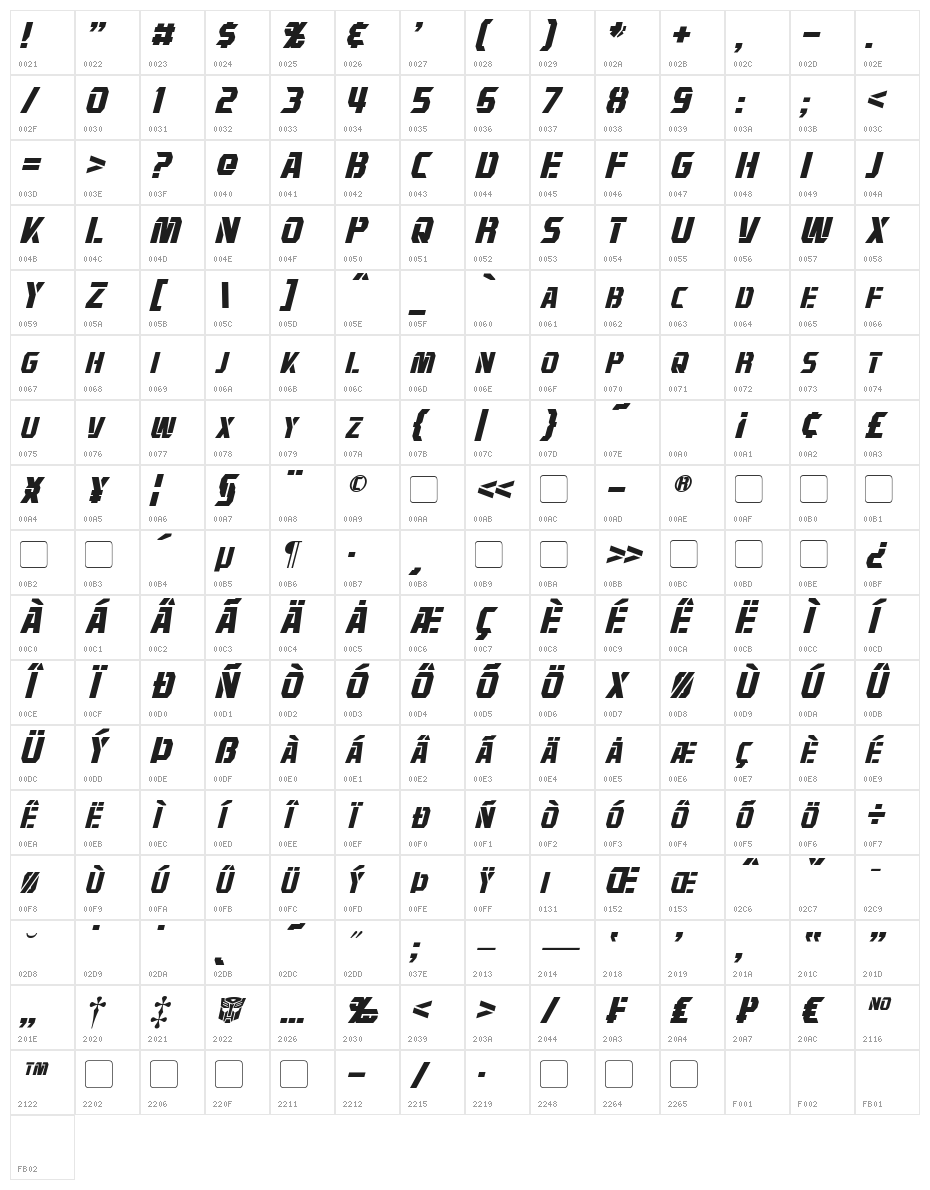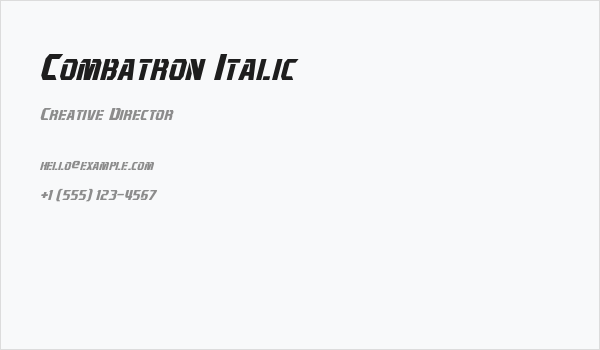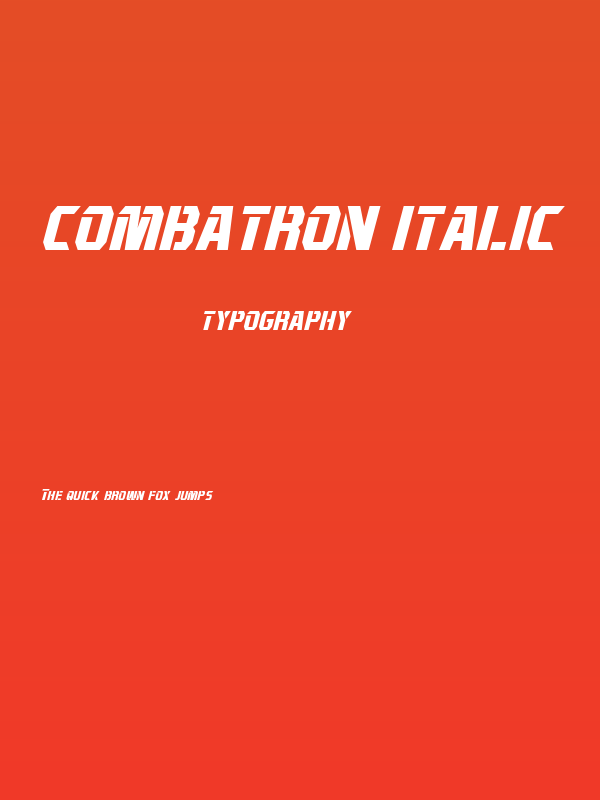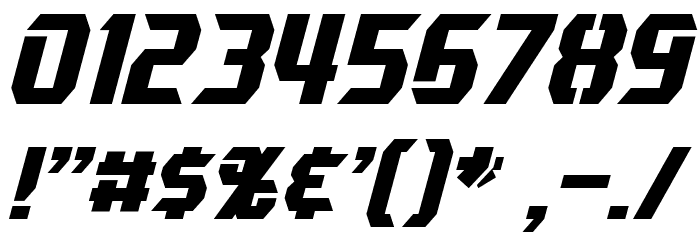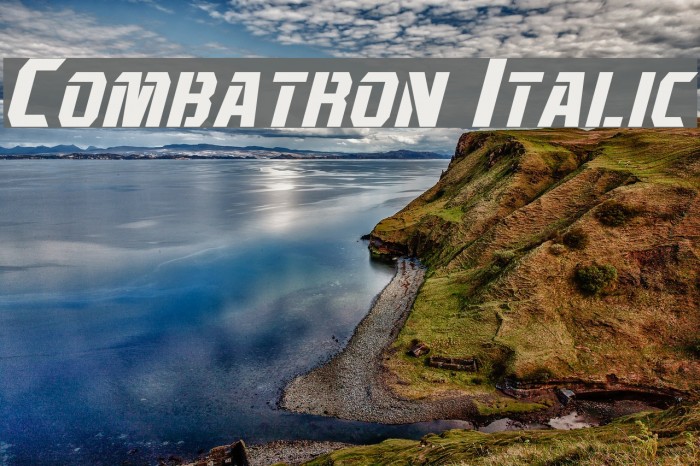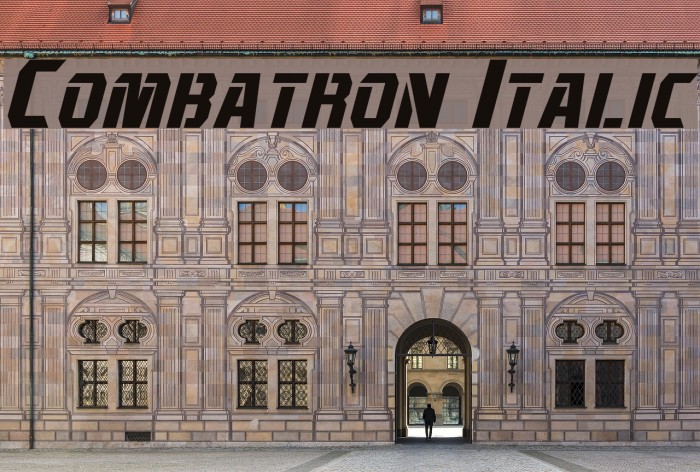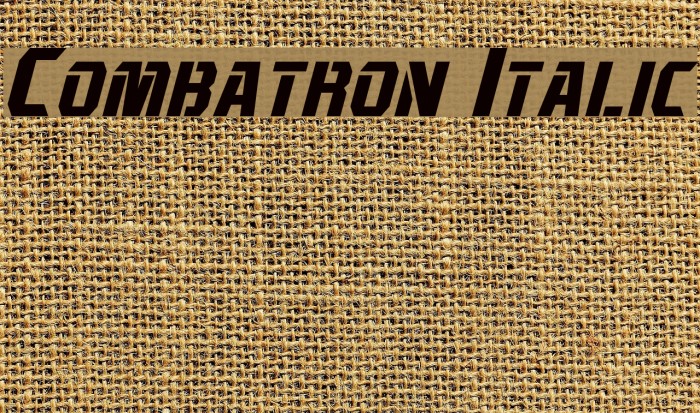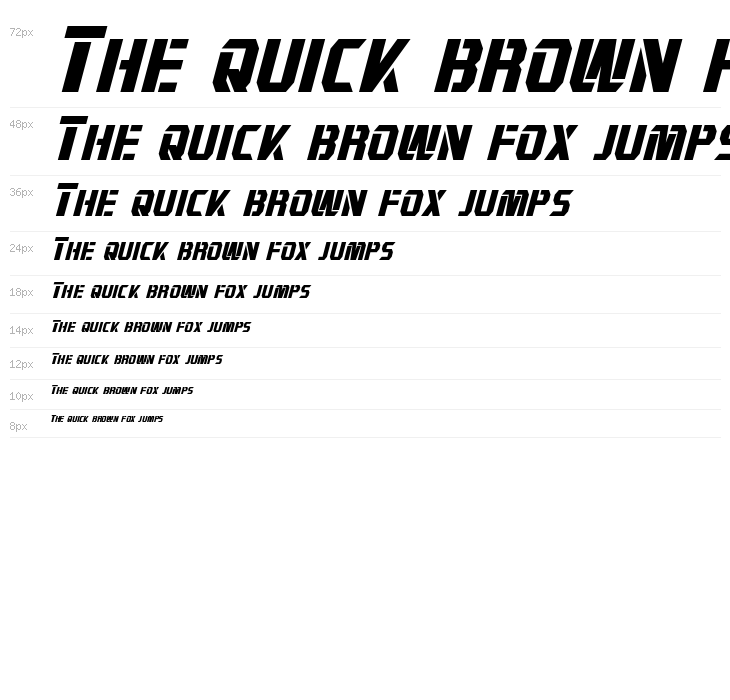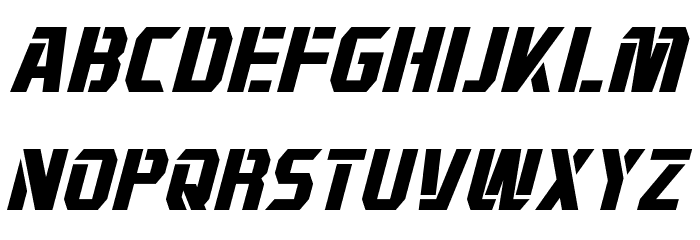
Combatron Italic Font
Combatron Italic Description
This font features a bold and dynamic style with a futuristic and angular design. The characters are italicized, giving them a sense of motion and speed. The strokes are thick and consistent, with sharp edges and geometric forms that create a strong visual impact. The uppercase and lowercase letters maintain a uniform appearance, while the numerals and special characters complement the overall aesthetic. This font is ideal for projects that require a modern and edgy look, such as technology branding, sports team logos, or action-themed posters.
| Use Case | Logos, Headlines |
| Proposed Projects | Technology branding, sports team logos, action-themed posters. |